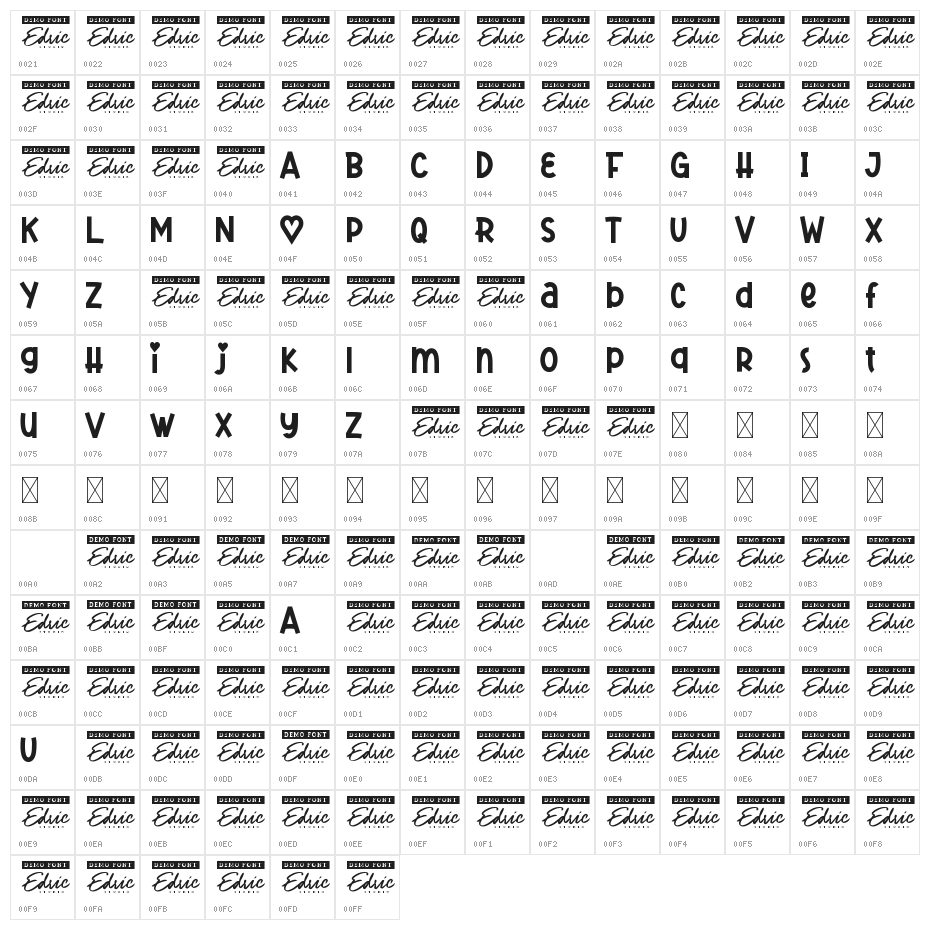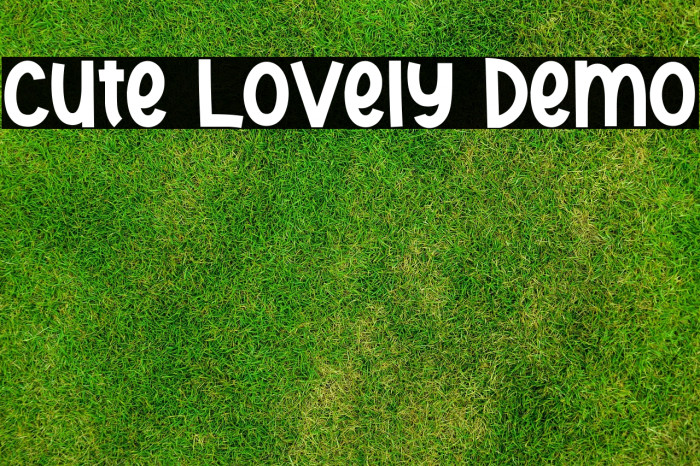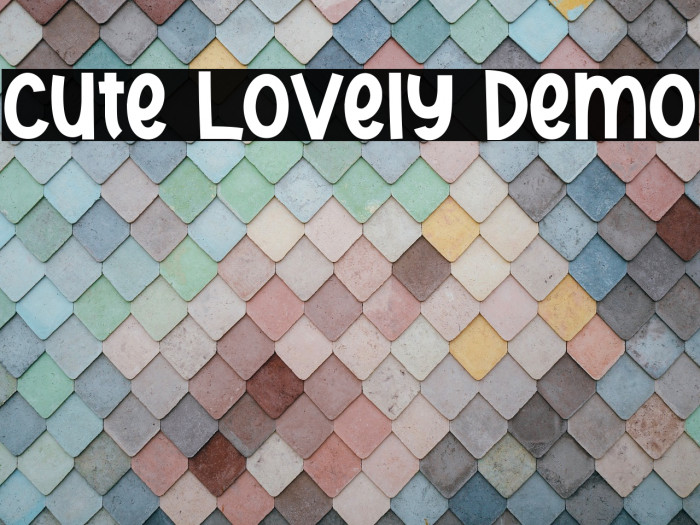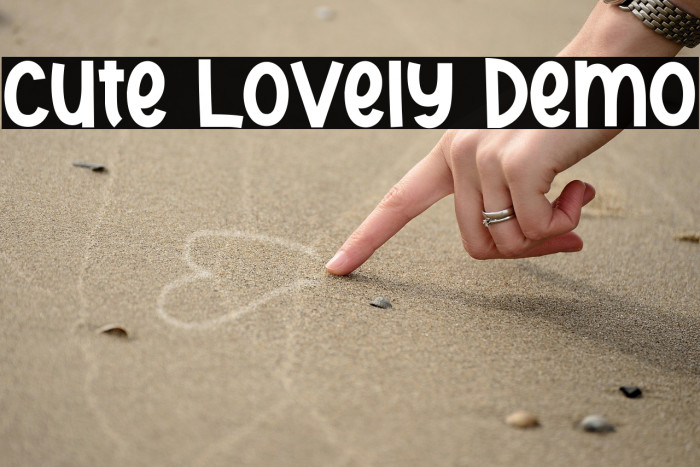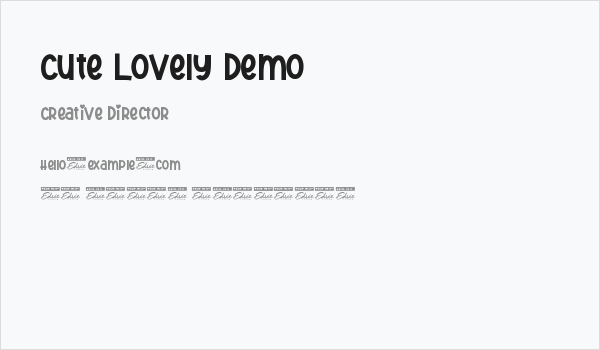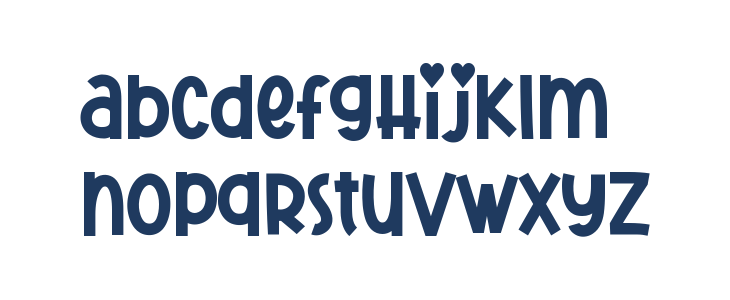
Cute Lovely Demo Font
Cute Lovely Demo Description
This playful and whimsical font features bold, rounded characters with a charming and friendly appearance. The uppercase letters are particularly distinctive, with some characters incorporating heart shapes, adding a unique and endearing touch. The lowercase letters maintain the same playful style, ensuring consistency throughout the typeface. The font's thick strokes and rounded edges contribute to its approachable and fun aesthetic, making it ideal for projects that require a lighthearted and cheerful vibe. Its decorative elements make it stand out, while still maintaining readability.